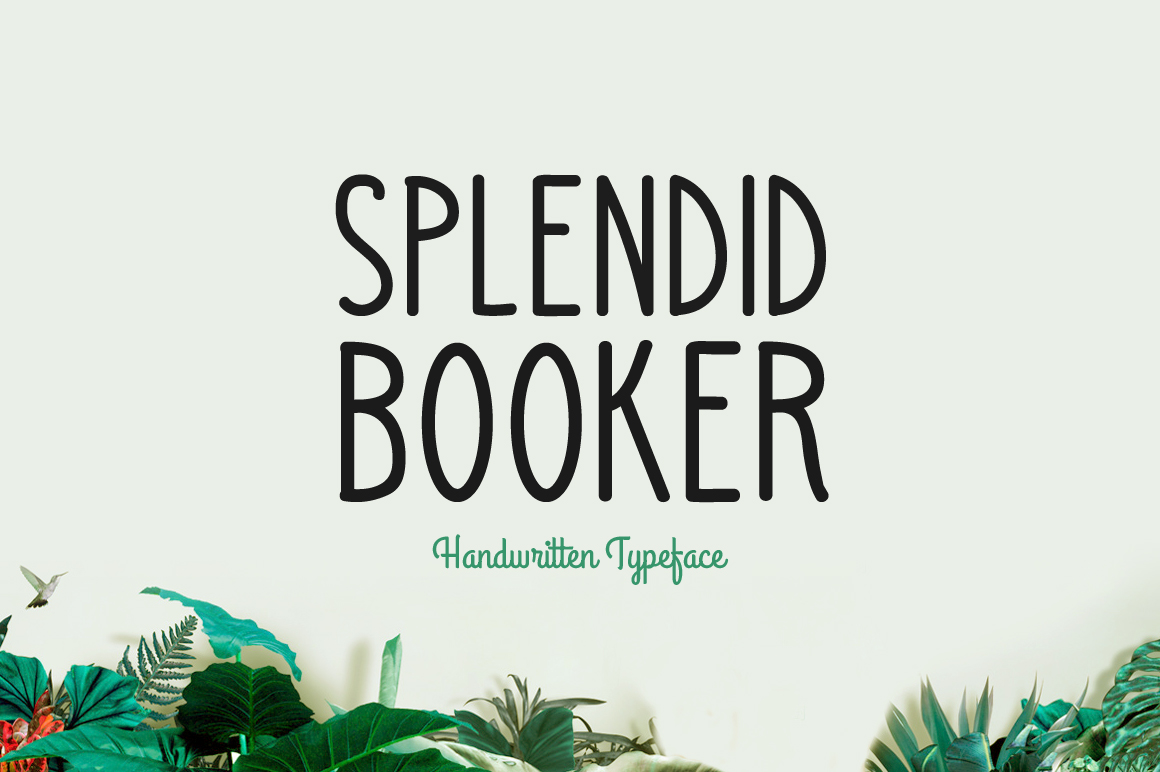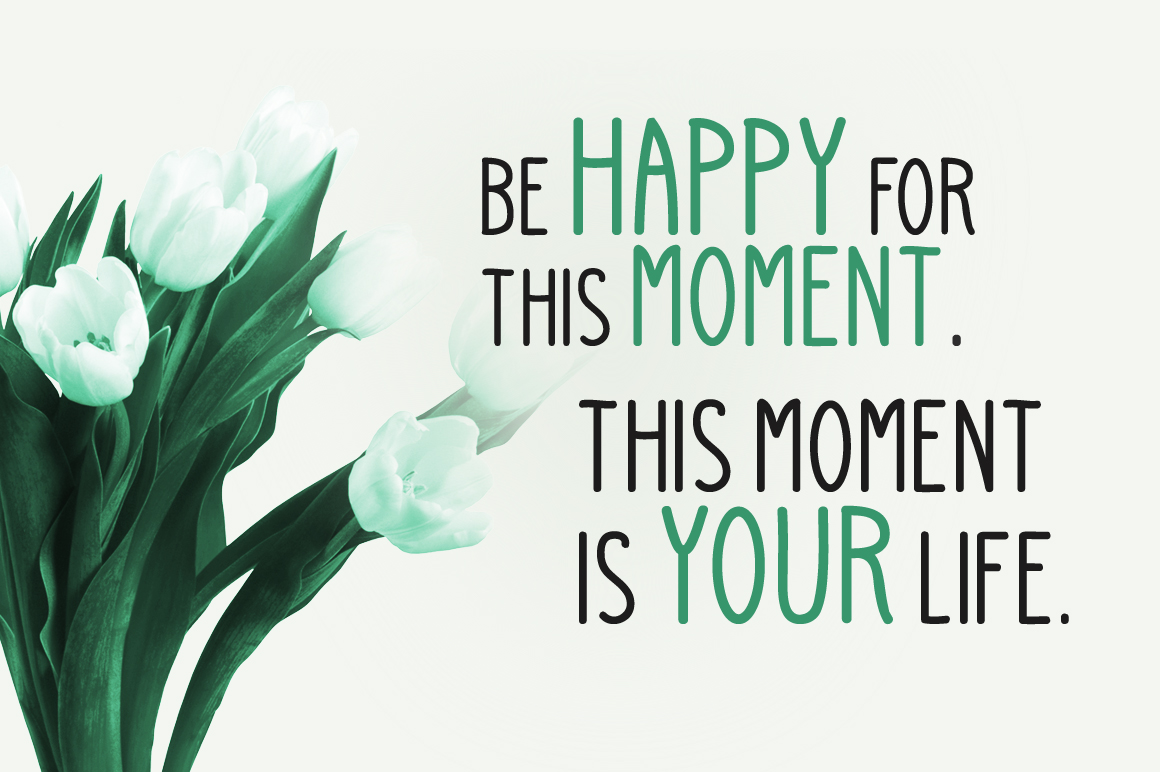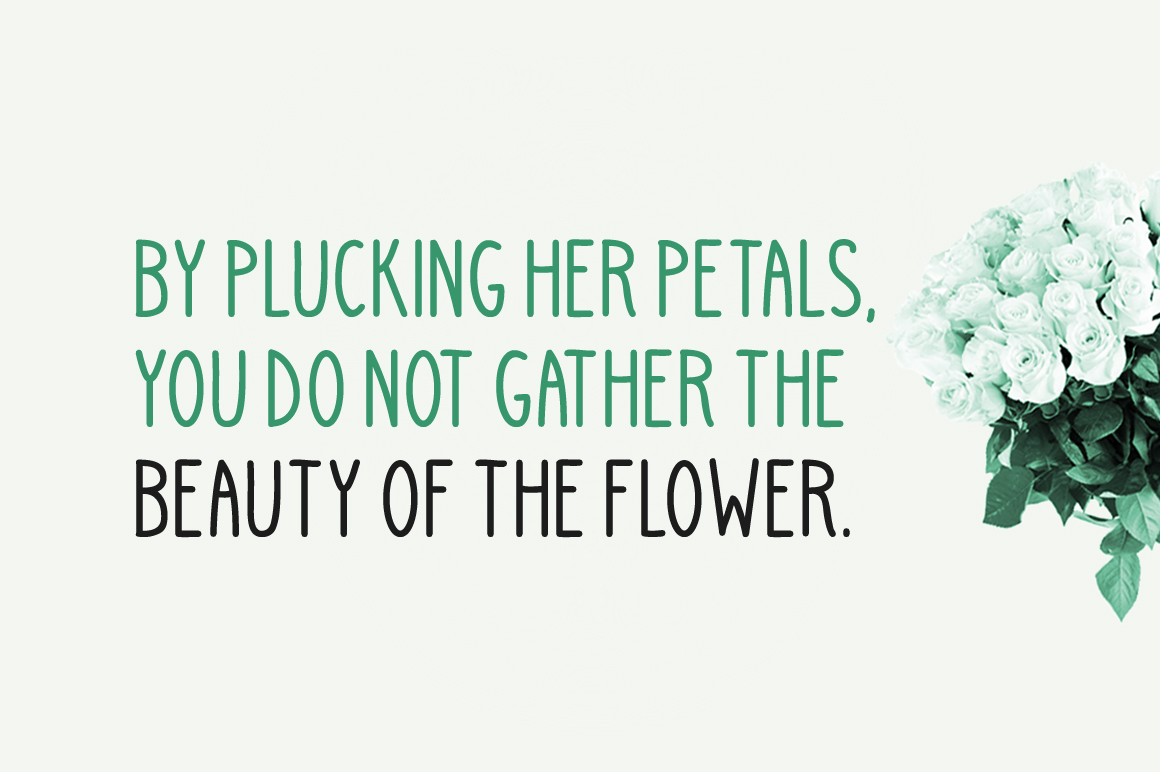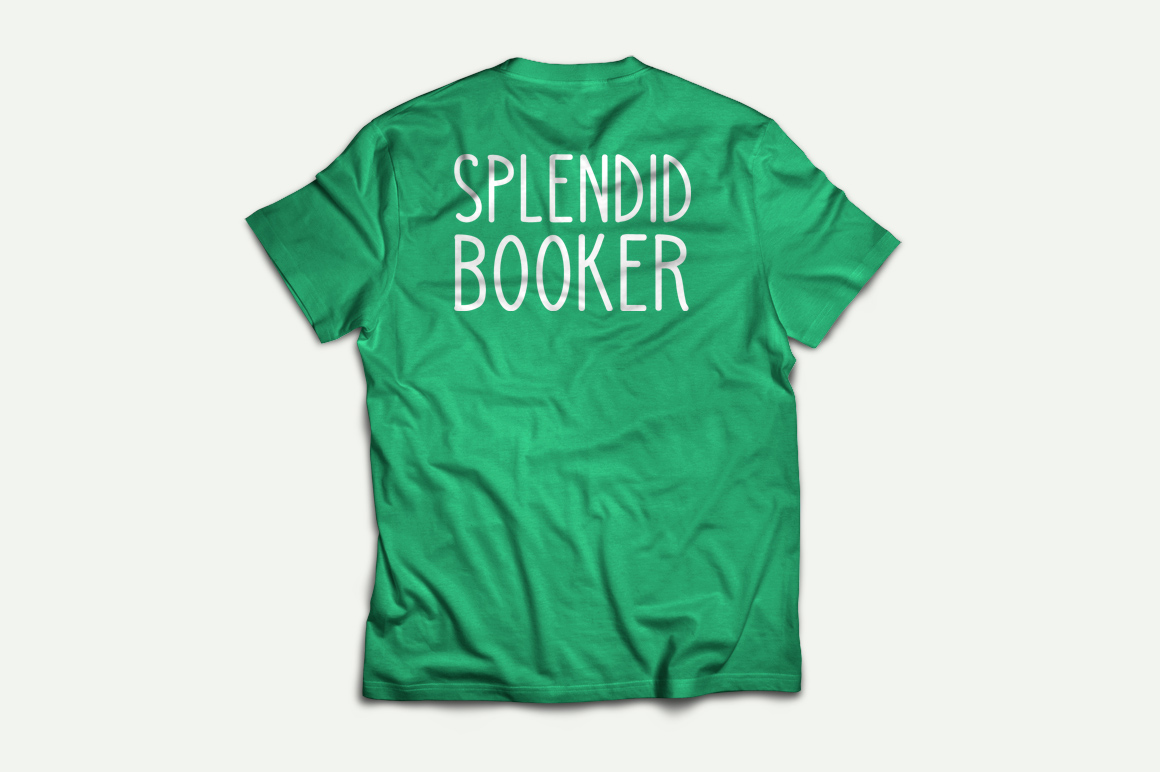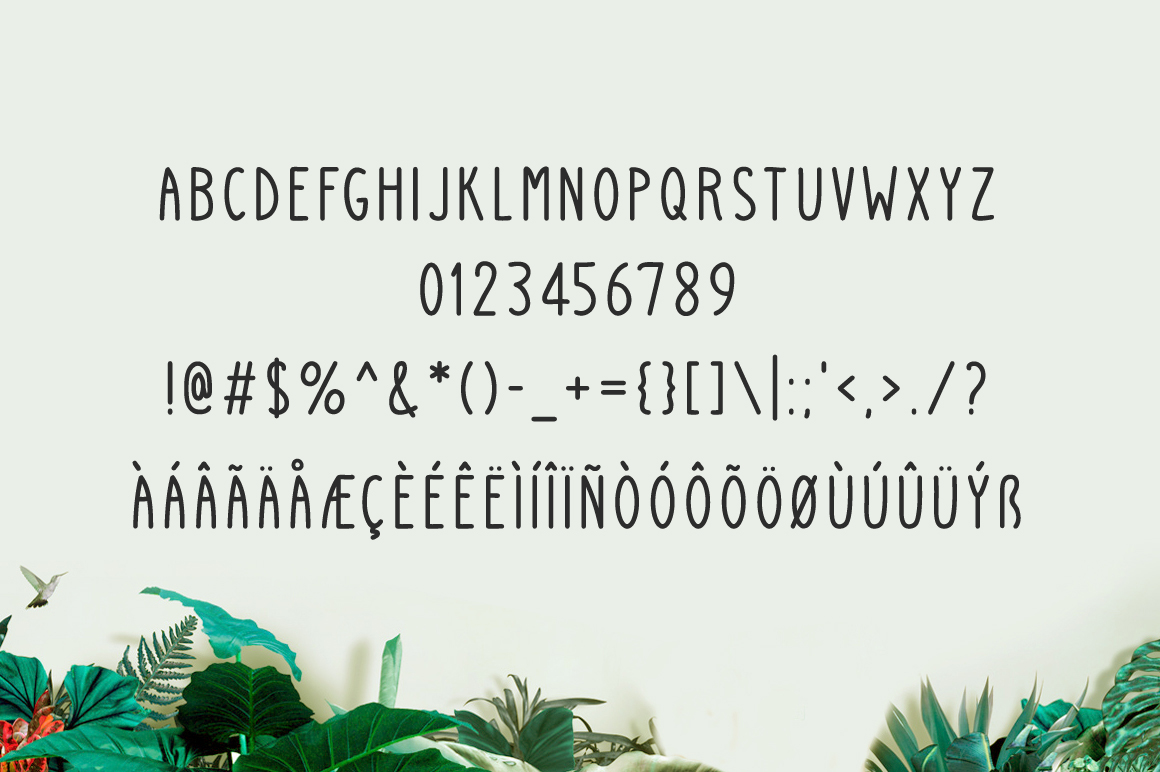
Splendid Booker Font
About Splendid Booker Font
Splendig Booker, a handwritten type with a soft touch. Perfect for multiple styles of projects.
Includes multilingual support.